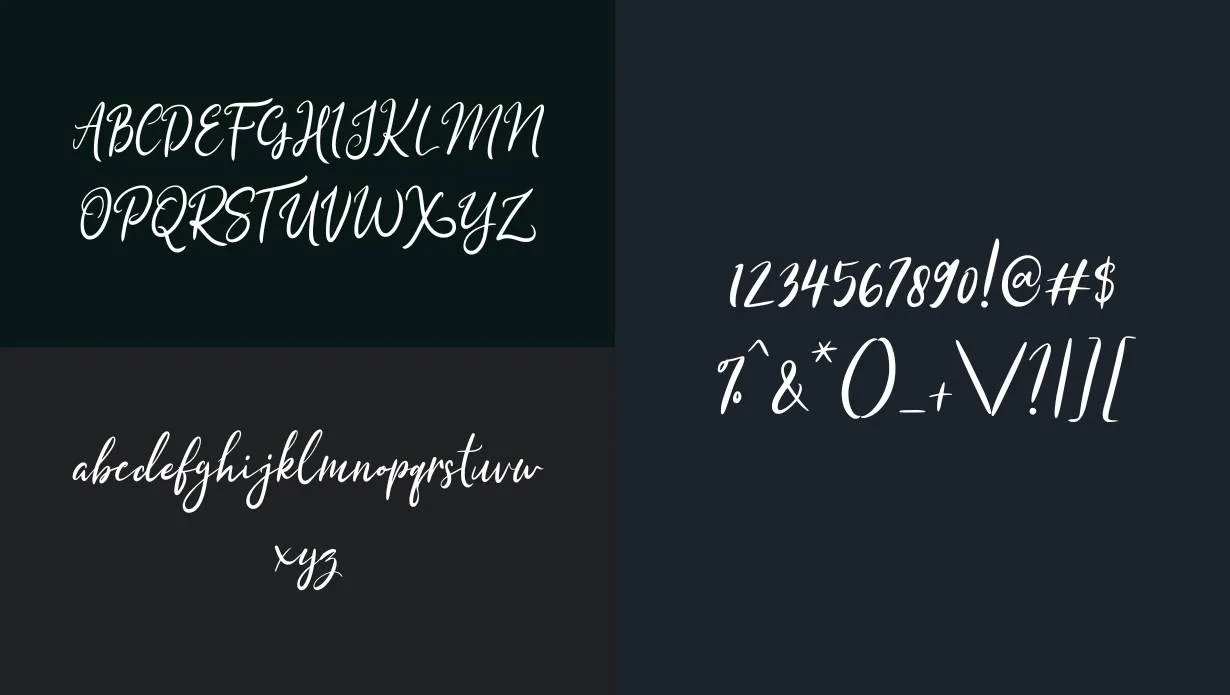
The Hasty Font evokes a sense of speed and urgency in its bold and swift appearance. Its dynamic and active style is employed in designs to represent rapid movement and an energetic atmosphere. This font injects a lively and hurried feel into text, making it a perfect choice for projects seeking an urgent and lively aesthetic.
| Name | Hasty Font |
| Designer | Yandi designs |